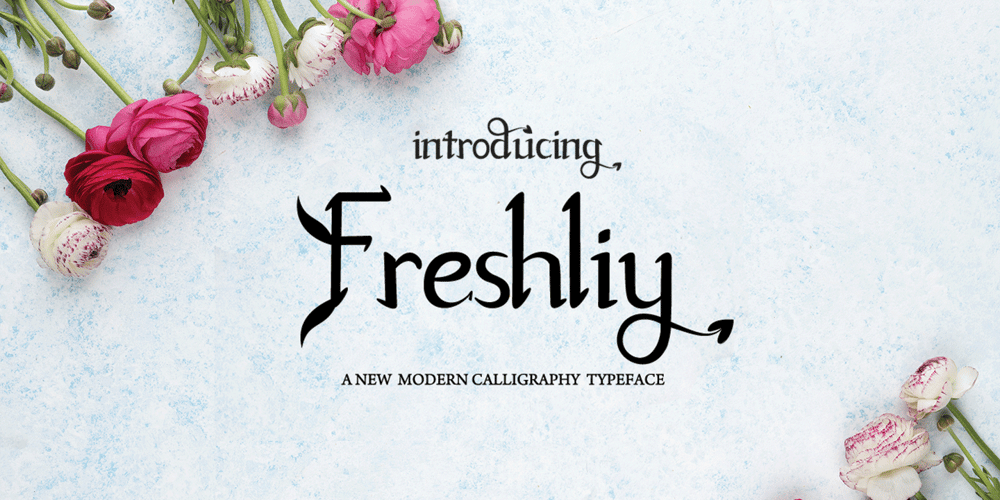
Freshliy
Freshliy font
Freshliy Font Family was designed by Reza Mukhtazar and published by Rezastudio. Freshliy contains 1 styles and family package options. Freshliy is a Modern Handwritten Font.Freshliy is perfect for product packaging, branding project, megazine, social media, wedding, or just used to express words above the background.Support multilingual.